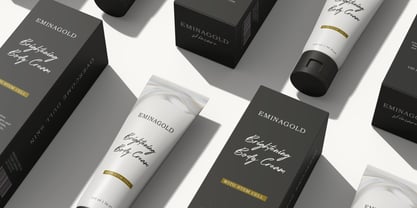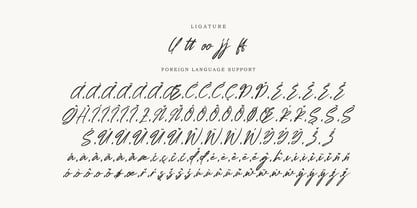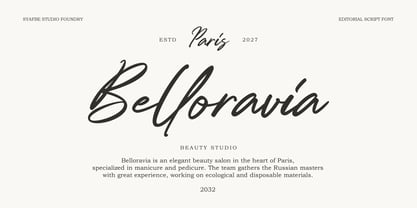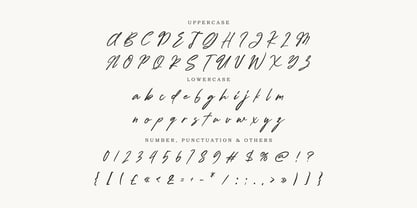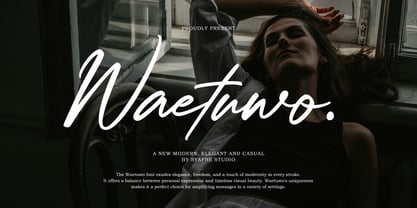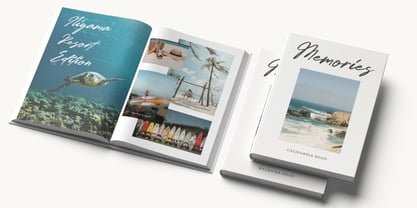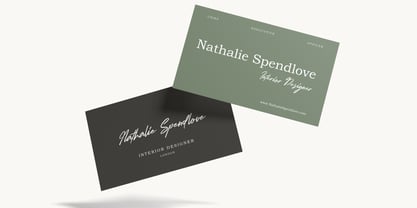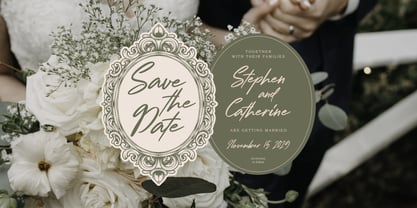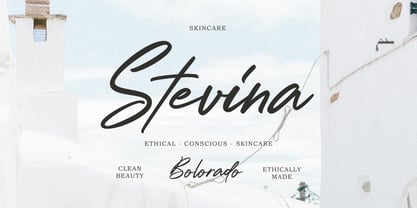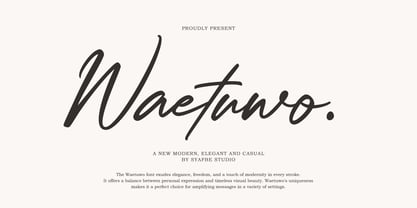
Waetuwo
by Syafbe
The Waetuwo Font Family was designed by Syafwan Mus and published by Syafbe. Waetuwo contains 1 styles.
Waetuwo: The Perfect Blend of Modern Simplicity and Classic Elegance The Waetuwo font is a work of art that exudes elegance and freedom in every curve. It's more than just letters; Waetuwo is the embodiment of a free spirit, a softness that dances across a digital canvas, and a touch of modernity that maintains a classic and personal feel. Each stroke is like an artist's brushstroke, creating a harmony between simplicity and a lasting charm. Philosophically, Waetuwo stands as a symbol that true beauty lies in balance: between boldness in expression and calmness in conveying a message. Its simple yet casual form teaches us the value of authenticity—that being ourselves is the pinnacle of beauty itself. Waetuwo conveys the message that creativity and originality always find a way to shine. This font seems to invite each user to write their own stories, hopes, and dreams, with confidence and a timeless aesthetic. With Priscillia, words not only read beautifully but also feel alive, connecting the hearts of creator and reader in an inspiring space. Waetuwo's elegance transcends disciplines, making it a perfect choice for fashion, beauty, culinary, wedding planning, photography, and corporate identity. This font is the answer to any visual expression that requires personal value, warmth, and captivating classic-modern charm.